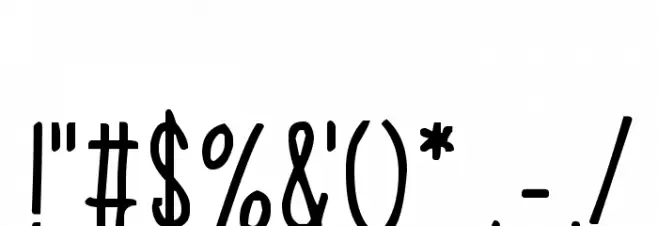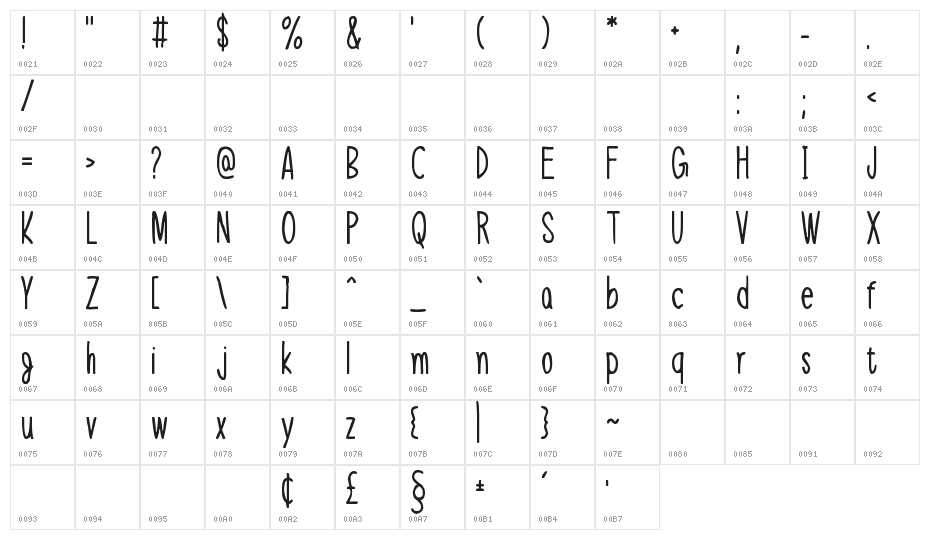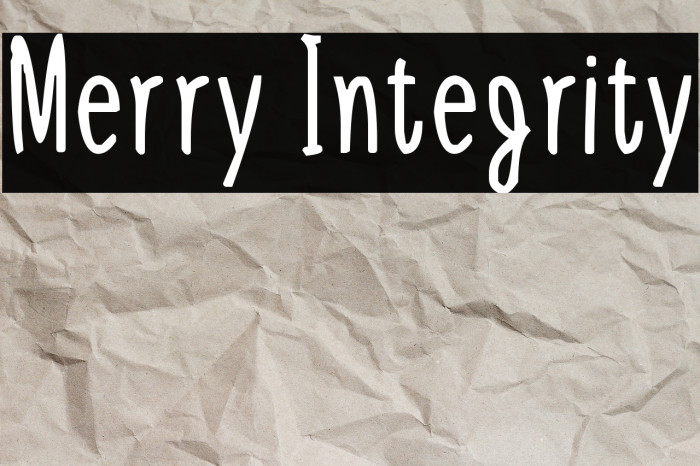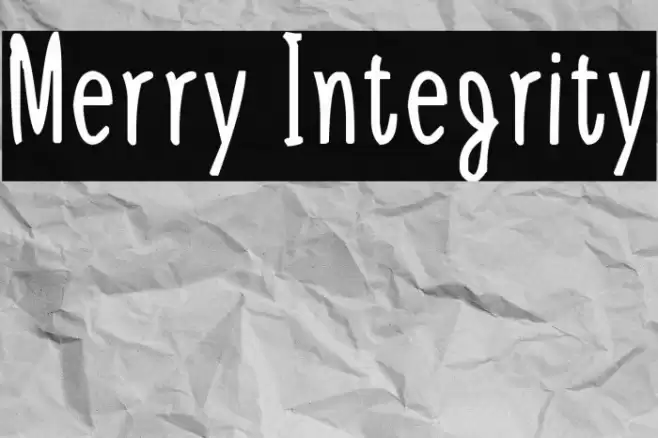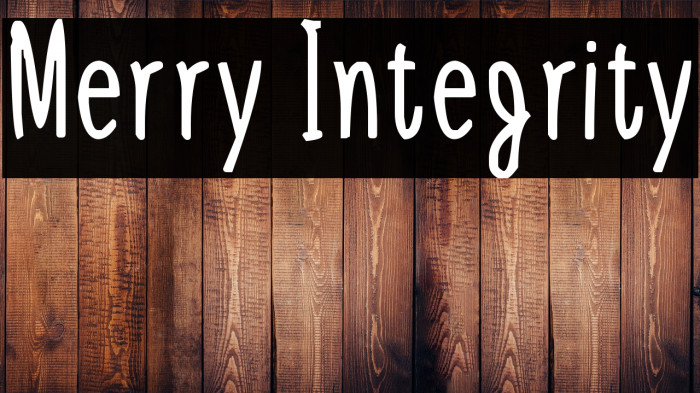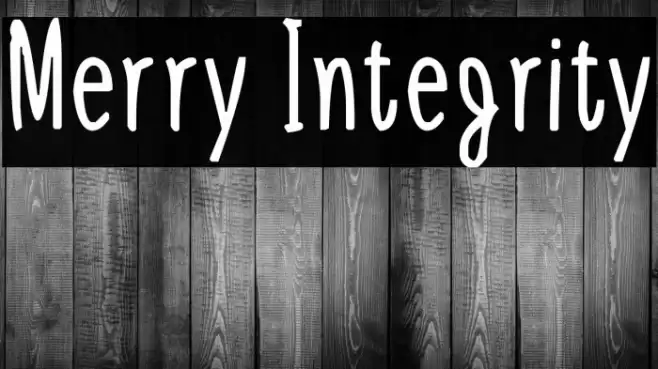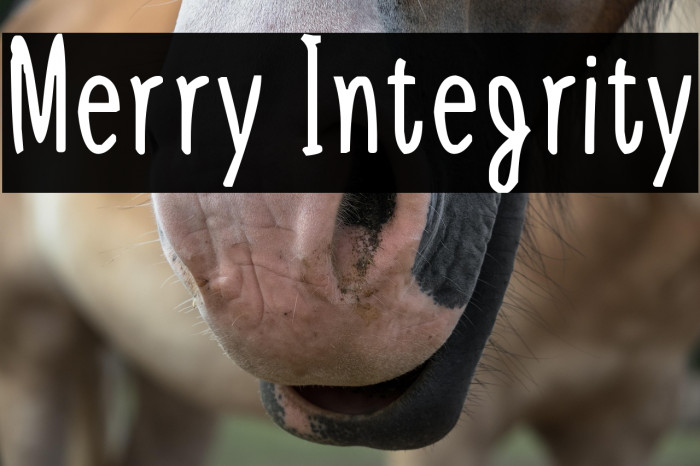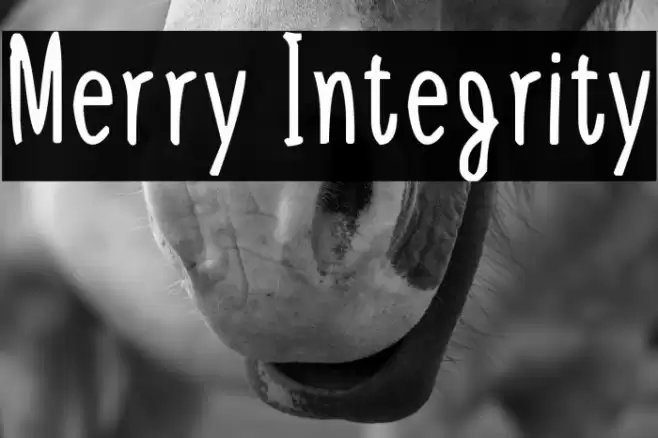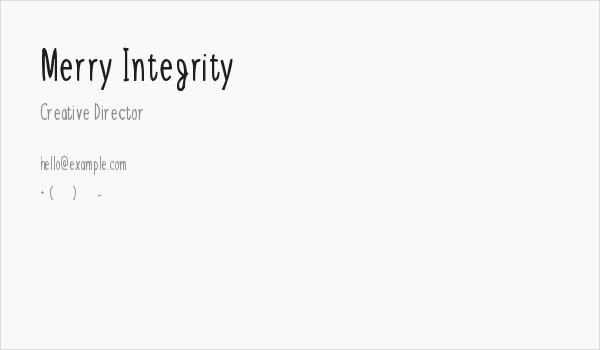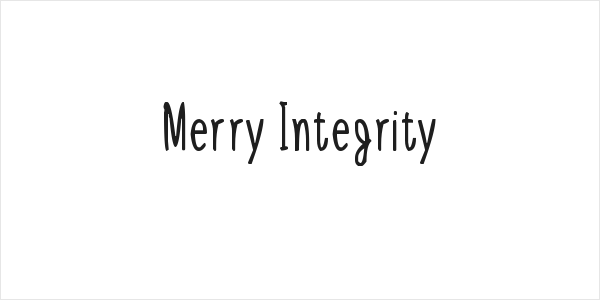
Merry Integrity Font
Merry Integrity Description
This font features a playful and whimsical style, characterized by its hand-drawn appearance. The letters are slightly irregular, giving it a casual and friendly feel. The uppercase and lowercase letters maintain a consistent height, with rounded edges and a slight tilt that adds to its charm. The numerals and special characters follow the same playful design, making it versatile for various creative projects. Its unique style makes it stand out, perfect for adding a personal touch to any design.
| Proposed Projects | Ideal for greeting cards, children's books, playful branding, and DIY projects. |